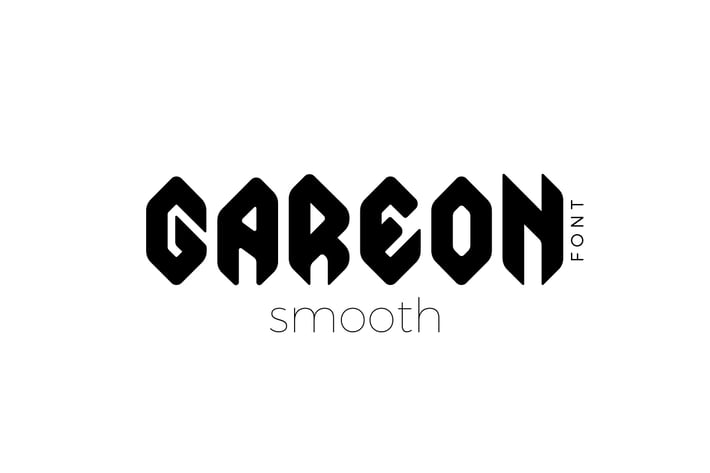
Gareon Smooth Font
Sentavio
Gareon Smooth is font, which create ancient magic myths and gothic atmosphere and style.
It is good looking as header and as text both.